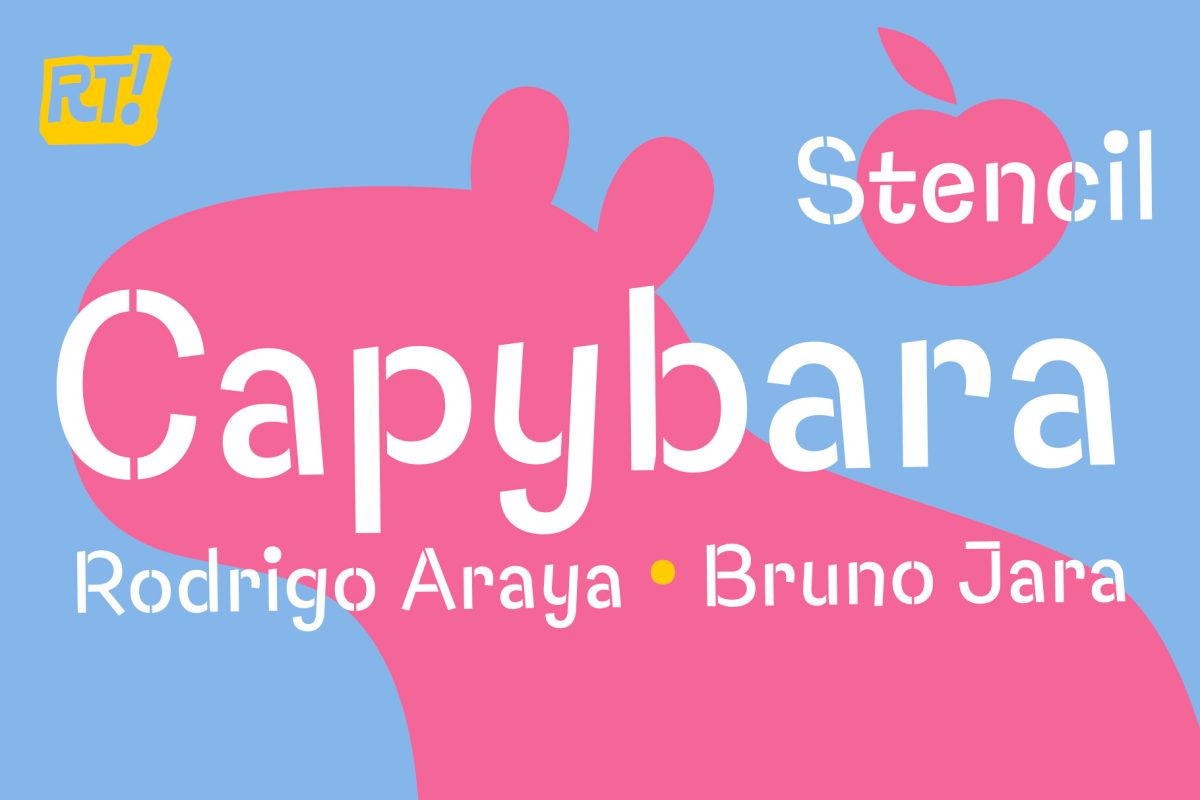
Whether you’re designing a fierce military poster, a bold sports jersey, or a gritty streetwear brand — the right stencil font makes all the difference. Stencil typography has long been associated with authority, rawness, and industrial precision. Today, it spans an incredible range: from war-worn army lettering to elegant serif stencils and playful kids’ typefaces.
What Makes a Great Stencil Font?
A true stencil font isn’t just a bold typeface — it’s engineered so that every letter can be physically cut out and used as a template. That means no fully closed loops: letters like O, B, D, A, P have deliberate bridges or gaps to keep the inner counters connected. This “bridge” design is what separates a functional stencil font from a regular display font.
Here’s what to look for when choosing a stencil font for your project:
- Open counters — gaps in closed letters for real stencil cutting (Cricut, laser, vinyl)
- Weight & readability — bold strokes that hold up at large and small sizes
- Style match — military, urban, elegant, sporty, or playful depending on your brand
- Character set — multilingual support, alternates, ligatures for extra versatility
Now let’s dive into the best picks — organized by style so you can find your perfect match fast.
Military & Army Stencil Fonts
These fonts channel battlefield authority, tactical precision, and rugged durability. Perfect for posters, gaming, apparel, patriotic projects, and military-themed branding.
Battle Army Stencil
Battle Army Stencil is a bold sans-serif army grunge font inspired by battlefield markings and military stencil typography. It features strong geometric letterforms combined with rugged distress details, scratched edges, and worn ink texture that give it an authentic combat-ready look.
- Geometric letterforms with distressed texture
- Scratched edges and worn-ink effect
- Stays readable even at small sizes
- Great for posters, gaming thumbnails, tactical branding
Best for: Military posters, YouTube covers, gaming thumbnails, apparel prints
Stencil Military Grunge
A distinctive sans-serif that goes beyond conventional military lettering — featuring bold, fearless strokes with a war-game texture and an edgy, worn-out finish. A true trailblazer in army typography.
- Bold fearless strokes with war-game texture
- Edgy worn-out finish for authentic grit
- Sans-serif construction for clean readability
- Versatile for logos, posters, and branding
Best for: Army-themed designs, logos, tactical branding, signage
Stencil Force
Stencil Force is a rugged, battle-tested military font forged for commanding attention. Inspired by real-world military stencils used on crates, vehicles, and gear, this all-caps powerhouse features subtle variations between uppercase and smaller caps that mimic the imperfect beauty of hand-cut stencils.
- Authentic all-caps military letterforms
- Subtle uppercase/smallcaps variation for realism
- Precision-crafted for impact and authority
- Perfect for historic reenactment and tactical gaming
Best for: Military posters, tactical games, historic branding, army apparel
Straight Fighter
Straight Fighter exudes strength, masculinity, and bravery. Inspired by classic war posters, military style, and the punk scene, this font features bold lettering with unique stencil cutting and special characters with multilingual support.
- Punk-meets-military aesthetic
- Special characters and multilingual support
- Bold letterforms that demand attention
- Suitable for display, headlines, patches, logotypes
Best for: War posters, editorial headlines, band logos, propaganda-style designs
Stencil Army (Classic)
A unique display font with a military style, originally created for veteran-related posters. Its clean, focused letterforms make it adaptable to virtually any project requiring a military edge.
- Classic military display style
- Originally designed for veteran poster series
- Clean and adaptable letterforms
- Works for all project types
Best for: Veterans’ tributes, patriotic posters, military merchandise
Military Stencil
Military Stencil is a cool and bold display font featuring the perfect amount of trendiness. This original look appeals to a wide range of crafty ideas — from letterheads and titles to stationery.
- Bold and trendy military aesthetic
- Great for letterheads, titles, stationery
- Distressed and retro character
- Wide application across print and digital
Best for: Letterheads, titles, military stationery, navy-themed designs
Liberty Stencil
Inspired by the grit and glory of American military heritage, Liberty Stencil evokes the spirit of 1776 — freedom, resilience, and patriotic pride. Sharp, clean cuts and a classic stencil structure make it march with confidence and historic gravitas.
- Fashion & luxury branding → Fellee Stencil, Nomads Stencil, Angel Stencil, Fashion Stencil
- Kids & playful → Cartoon Stencil, Capybara Stencil, Brownie Stencil
- Gothic & edgy → Stencil Blackletter, Rock Stencil